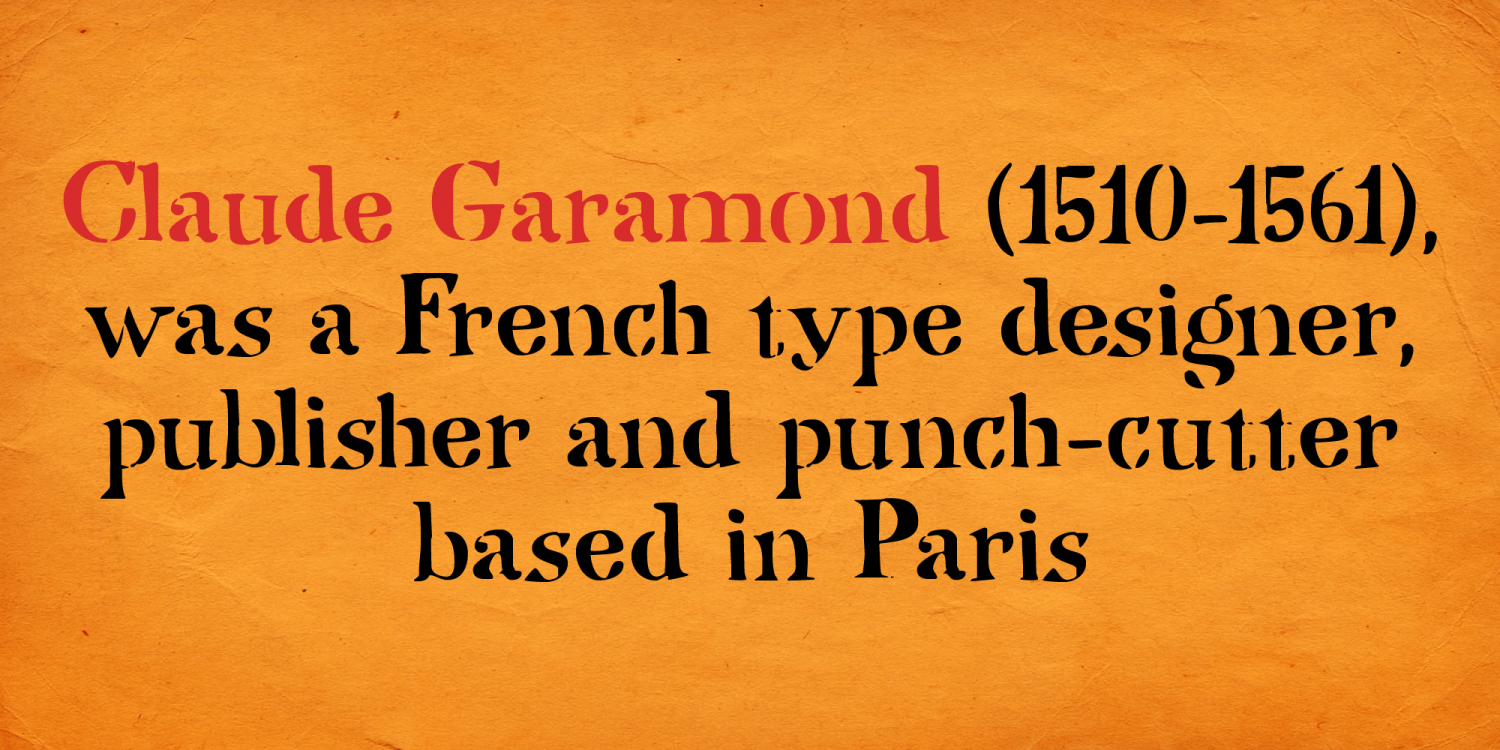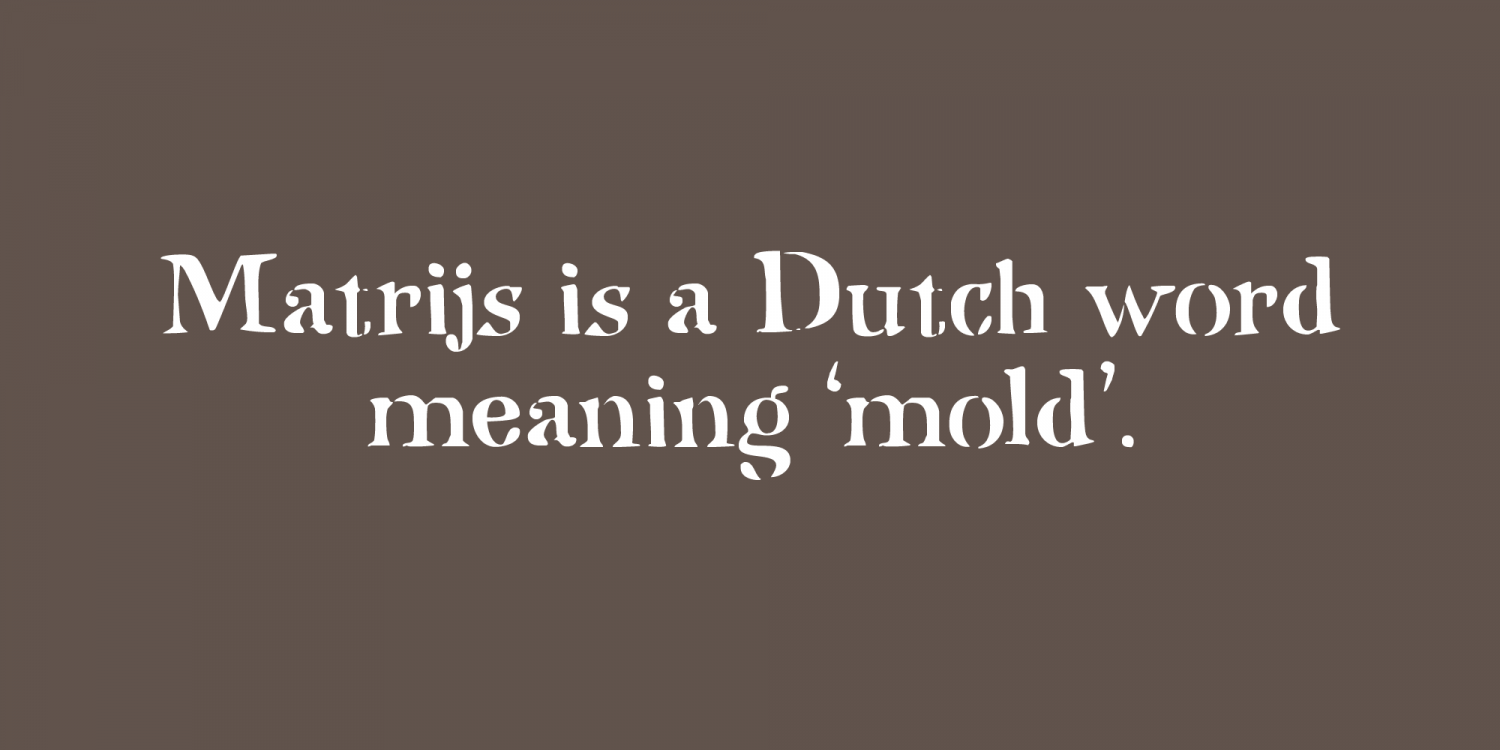
About Matrijs
Matrijs is the Dutch word for mold. It comes from the Latin word for mother or womb and is somewhat similar to the English word Matrix. Matrijs is a handmade Garamond which can be used for a wide range of projects.